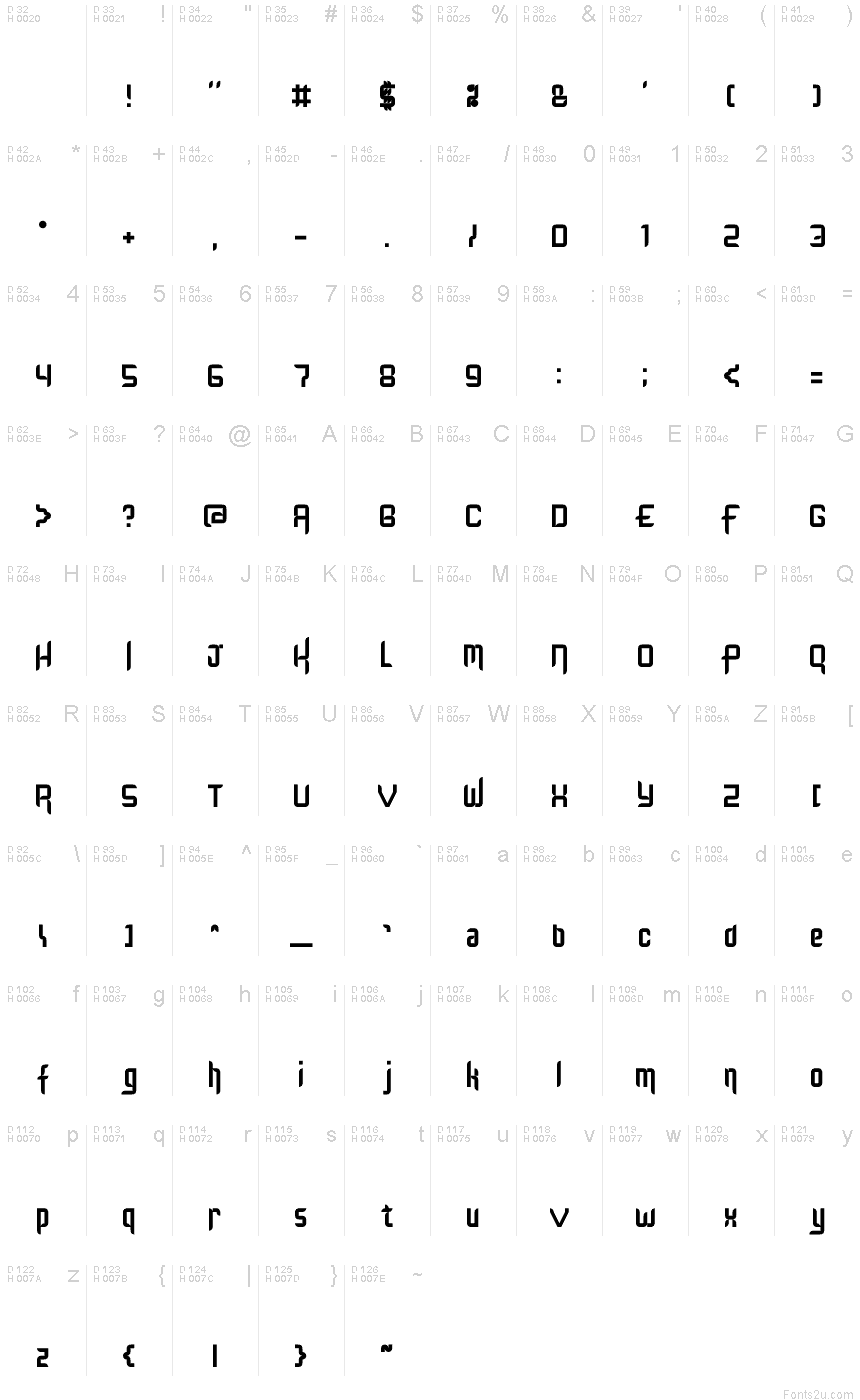
Kinglify by NAL of FontStruct is a free futuristic display font with narrow geometric lettering and dramatic shifts in stroke height. Rounded rectangular forms meet clipped corners and long vertical sweeps that give each word an architectural, machine-made profile.
Technology brands and gaming venues could use it for brand identities, event posters, and interface graphics. Its circuit-like turns and repeated right angles also suit science-fiction publishing and electronic music events. It is especially convincing for robotics and virtual-city themes.